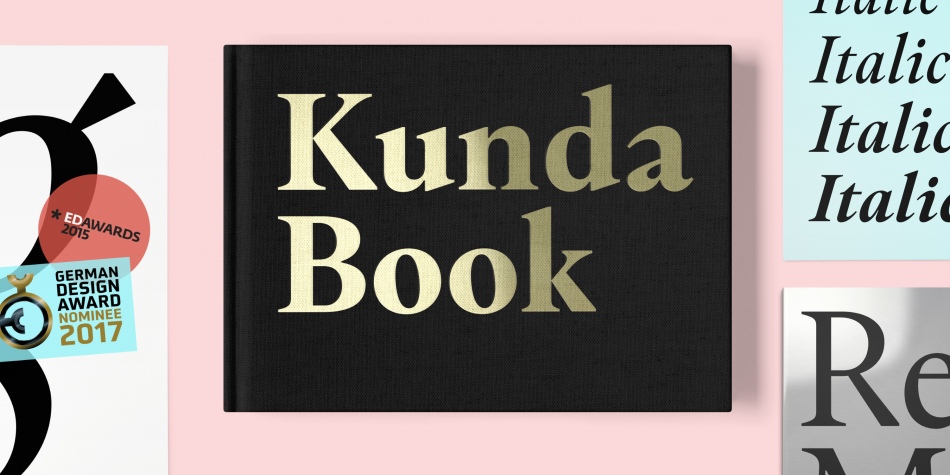
Kunda Book Font
Kunda Book Font is perfect for literary publications, academic journals, educational textbooks, publishing house branding, bookstore marketing, library signage, scholarly articles, classic literature editions, reading apps, and professional documentation.
What makes Kunda Book Font exciting is its scholarly elegance that embodies the timeless tradition of fine literature and academic excellence. This distinguished typeface combines classical readability with intellectual sophistication, creating letterforms that communicate knowledge, wisdom, and scholarly authority. The font's academic character and readable design make it perfect for educational institutions, publishing companies, and literary brands seeking to convey intellectual credibility and scholarly distinction.
The Kunda Book Font family includes Regular, Bold, Light, Medium, Italic, Semi-Bold, Condensed, and Display variants. Each weight maintains the font's scholarly character while providing comprehensive typographic flexibility for academic brand identity systems and educational design applications across diverse literary platforms.
Whether you're developing educational brand identities, creating academic publications, designing library materials, or building scholarly marketing campaigns, Kunda Book Font delivers unmatched intellectual appeal and academic credibility. Its scholarly presence makes it perfect for universities, publishing houses, educational technology companies, and literary organizations seeking authentic academic representation.
The font's classical proportions and readable details ensure optimal performance across lengthy texts while maintaining its distinctive scholarly character. Each letterform has been carefully designed to reduce reading fatigue and enhance comprehension, making it ideal for extended reading experiences and academic documentation.
This versatile typeface excels in educational environments, offering designers the authority needed for comprehensive academic brand communication strategies. The extensive character set includes scholarly alternates, academic ligatures, and international symbols for global educational market positioning and intellectual brand storytelling.
Establish your intellectual presence with typography that honors scholarly tradition and celebrates academic excellence.